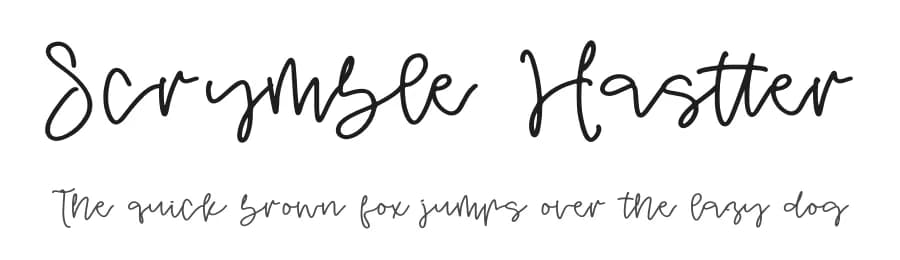
About Scrymble Hastter Font
Scrymble Hastter Specifications
| Font Family | Scrymble Hastter |
| Full Name | Scrymble Hastter |
| Glyph Count | 239 glyphs |
| PostScript Name | ScrymbleHastter |
| Designer | Perspectype Studio |
Scrymble Hastter ships with 1 OpenType feature you can switch on in apps that support them (Illustrator, InDesign, Affinity, Figma, CSS font-feature-settings).
Scrymble Hastter supports 222 languages.
Scrymble Hastter Font is a script font that shines as a display or heading face. Pair it with a clean sans-serif or serif font for body text β the contrast creates a clear hierarchy while the two styles stay balanced and easy to read.
Scrymble Hastter Font